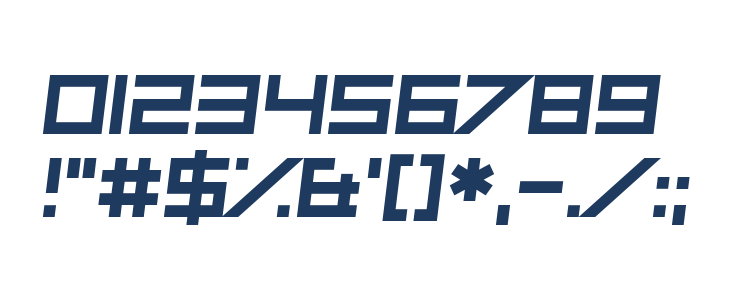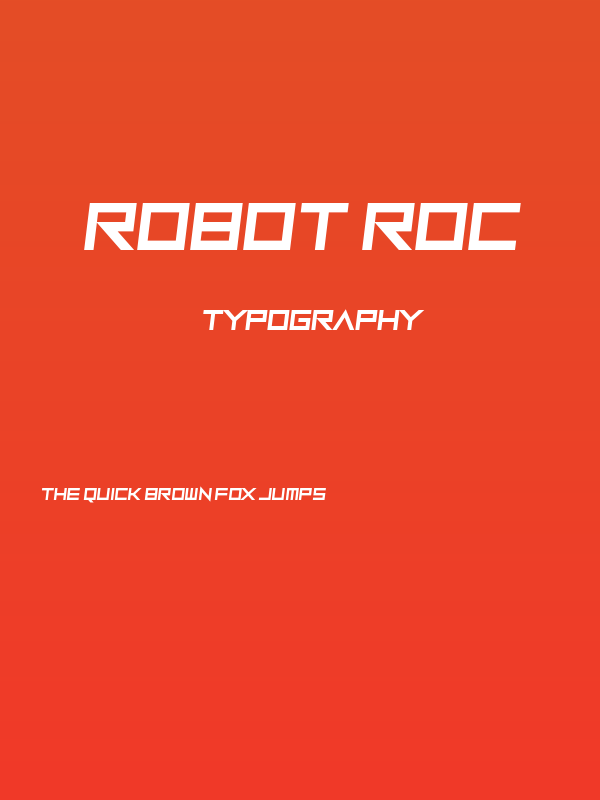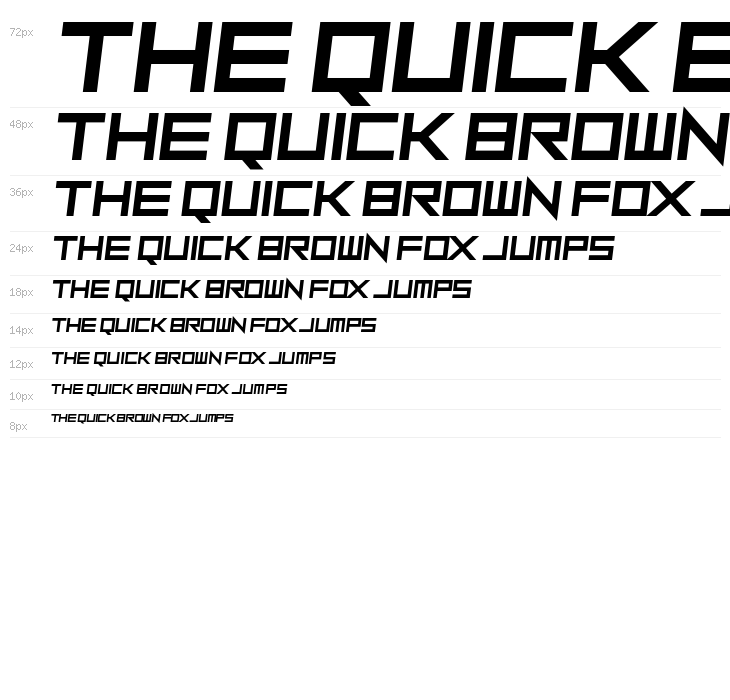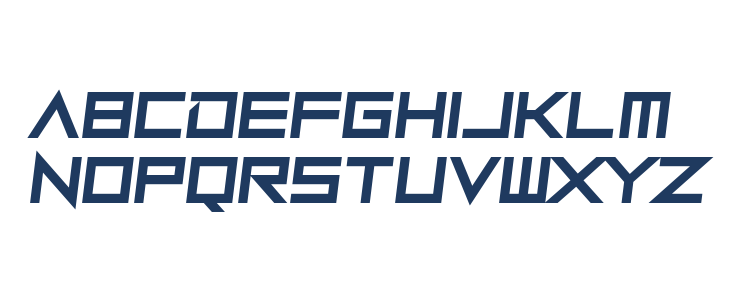
Robot Roc Font
Robot Roc Description
This font features a futuristic and angular design, characterized by sharp edges and geometric shapes. The uppercase letters exhibit a bold and dynamic presence, with a slight slant that adds a sense of motion and modernity. The lowercase letters maintain the same angular style, ensuring consistency throughout the typeface. Numbers and special characters are designed with the same attention to detail, making them easily recognizable and visually appealing. The overall appearance is sleek and contemporary, suitable for projects that require a modern and tech-inspired aesthetic.
| Proposed Projects | Ideal for technology branding, sci-fi movie posters, video game titles, and modern digital interfaces. |